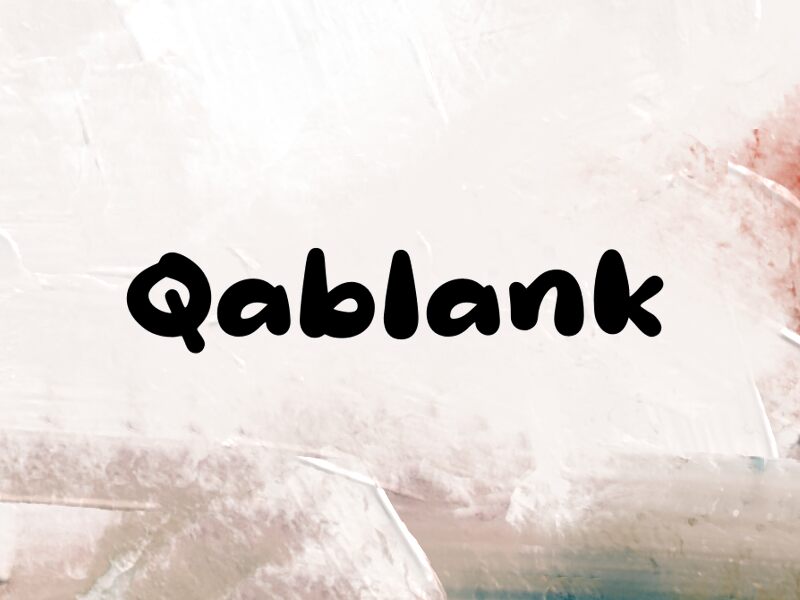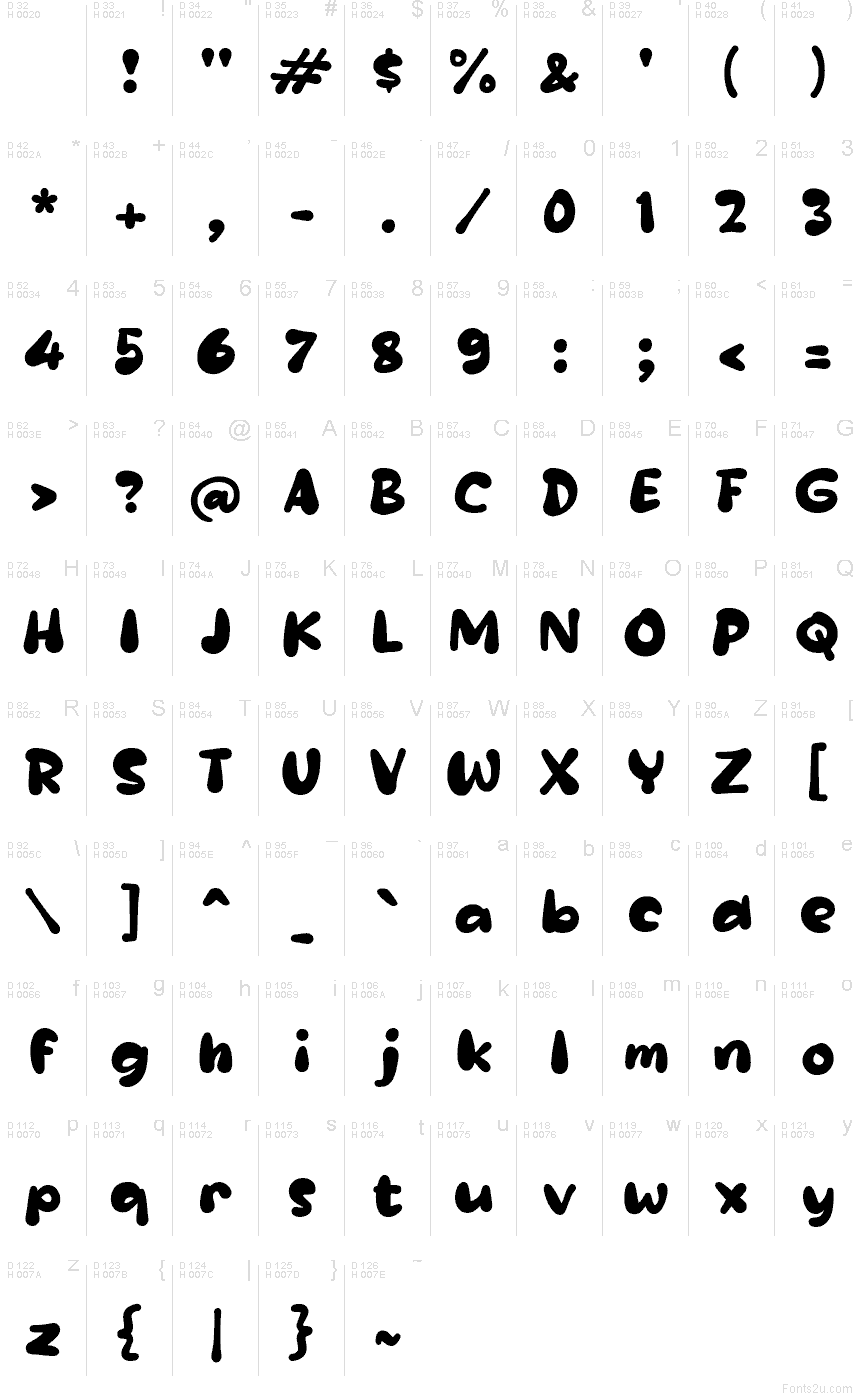
Qablank
Qablank font by wep is a free cartoon display typeface with bold, inky letters that feel hand-drawn and squishy, like fresh marker on a sketchbook page. The chunky strokes and soft, rounded shapes give every word a friendly bounce, while the tight rhythm keeps it readable even at big sizes. It’s casual, goofy, and full of motion—great when you need type that looks like it’s actually having fun.
Using Qablank, you can bring playful energy to kids’ book covers, birthday invitations, educational worksheets, toy packaging, game UIs, and cheerful social posts. This free font shines on titles and logos where you want maximum charm with minimal fuss. Pair Qablank with a clean, light sans serif for body text so its bold personality stays in the spotlight without overwhelming your layout.